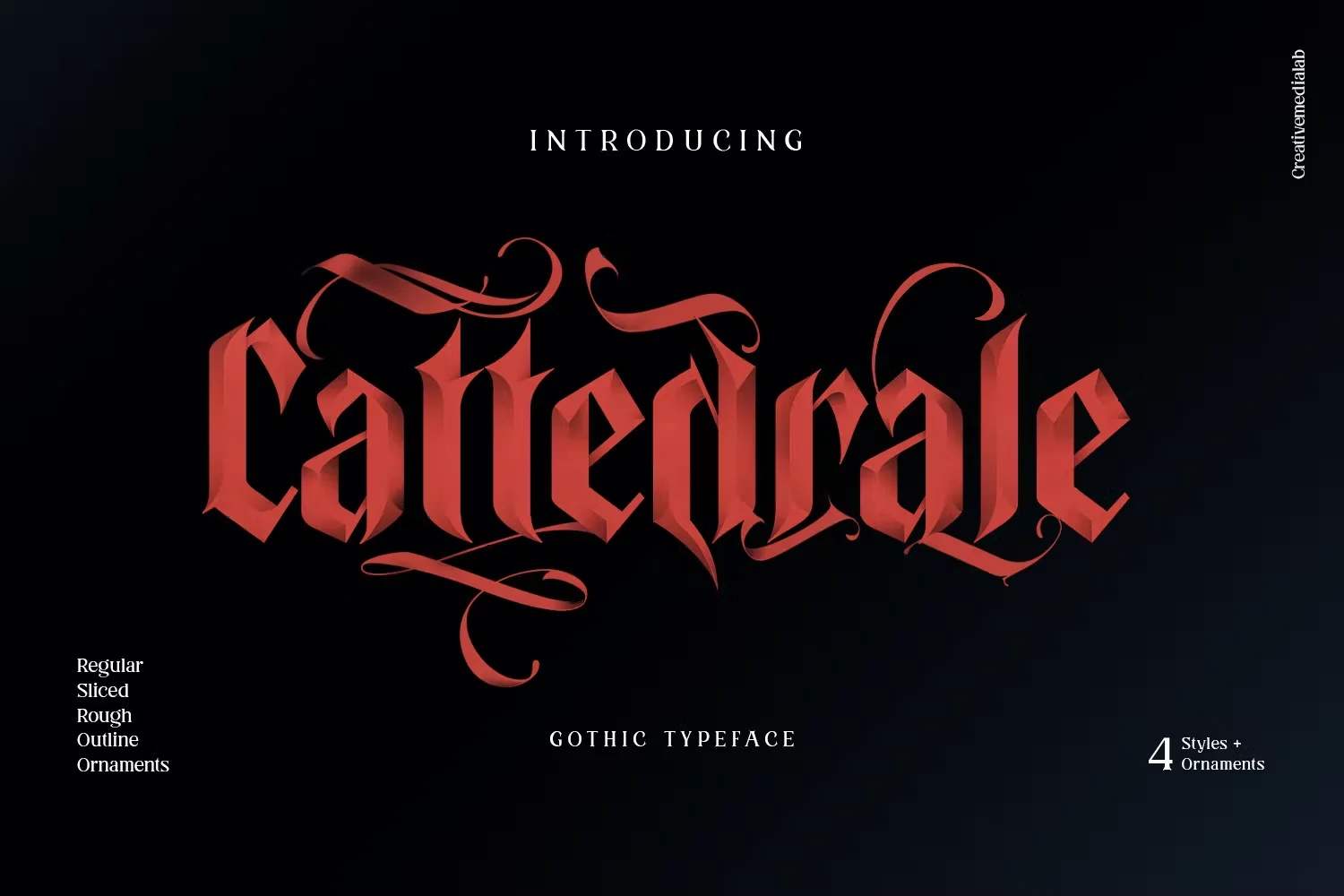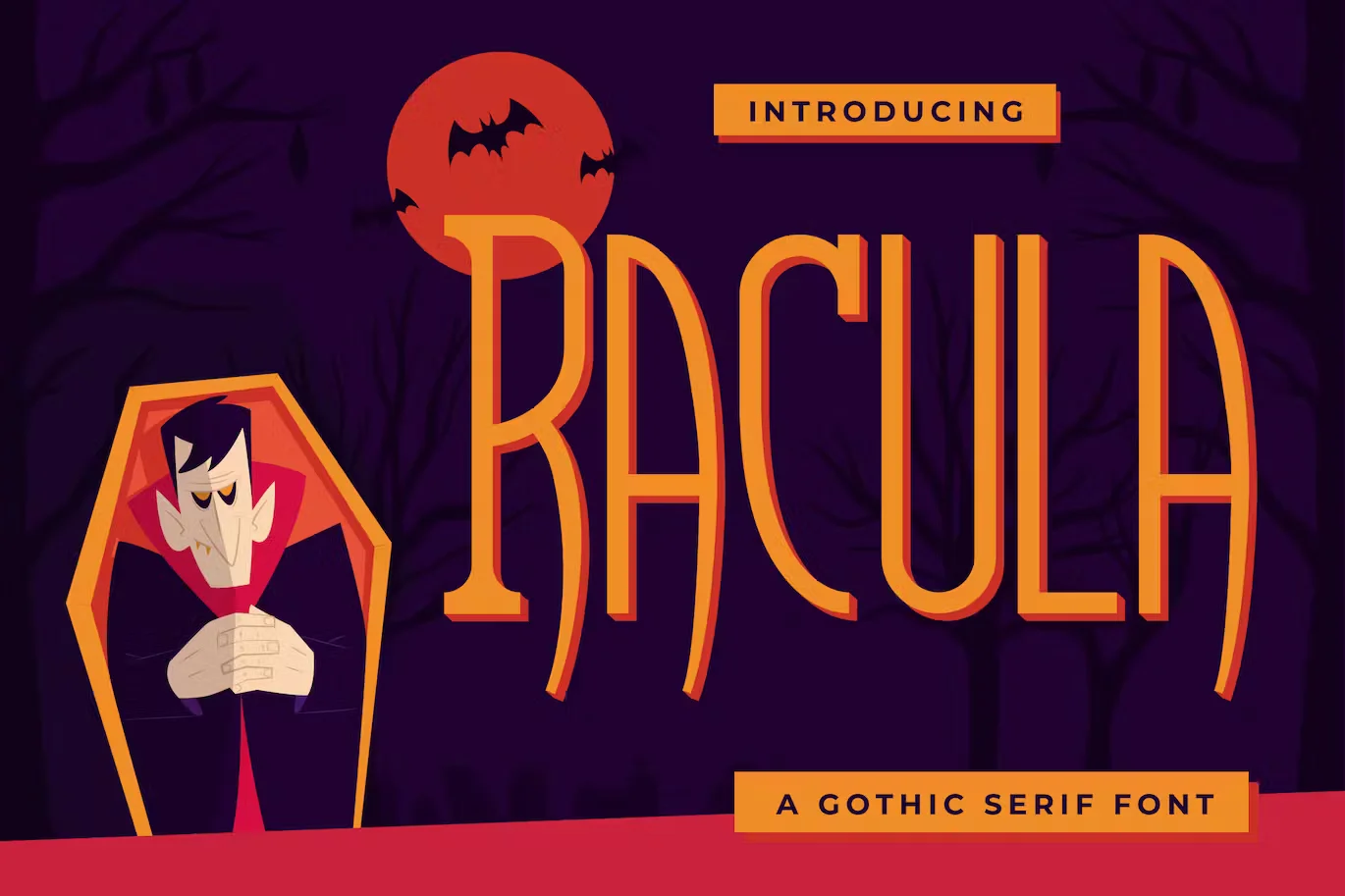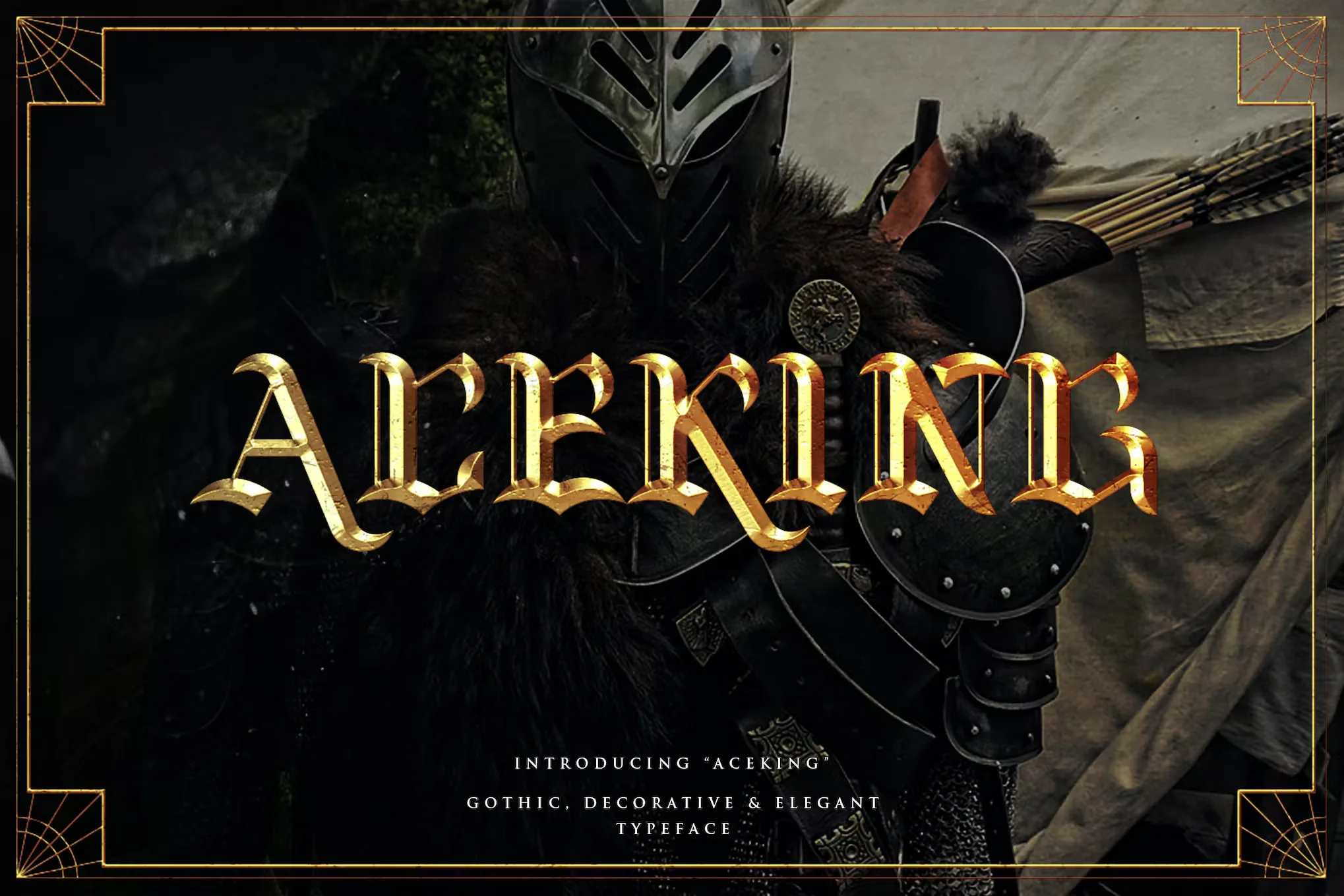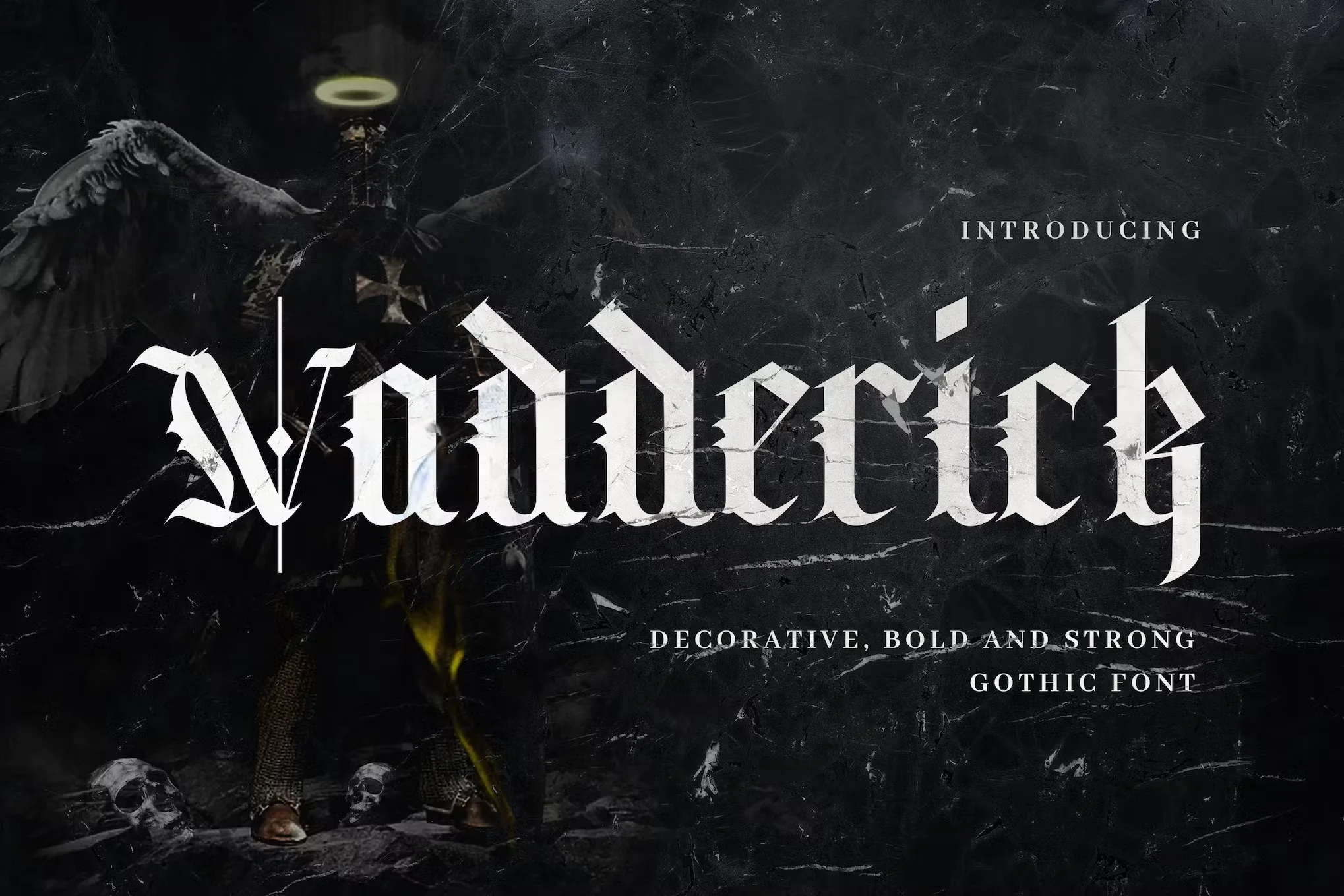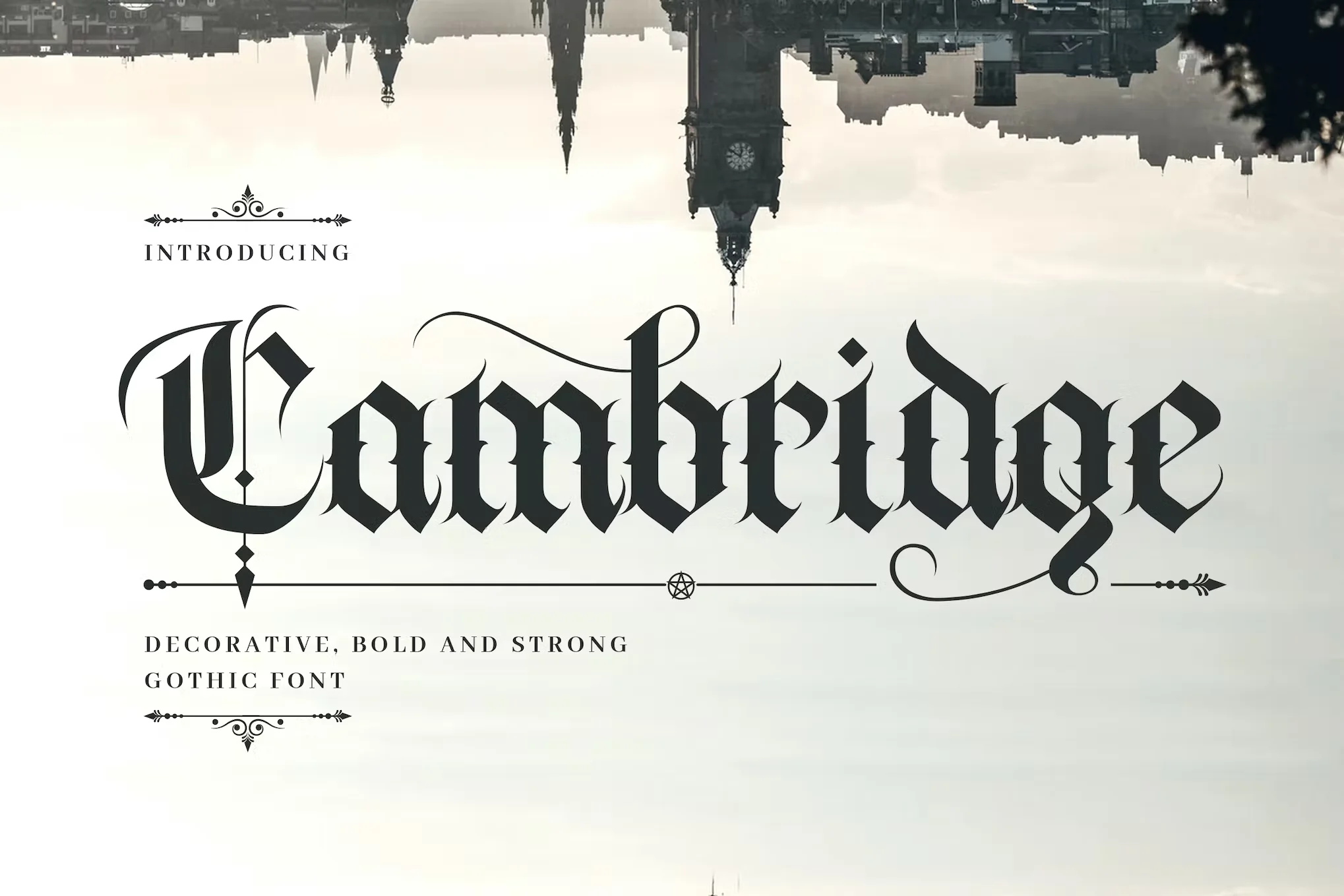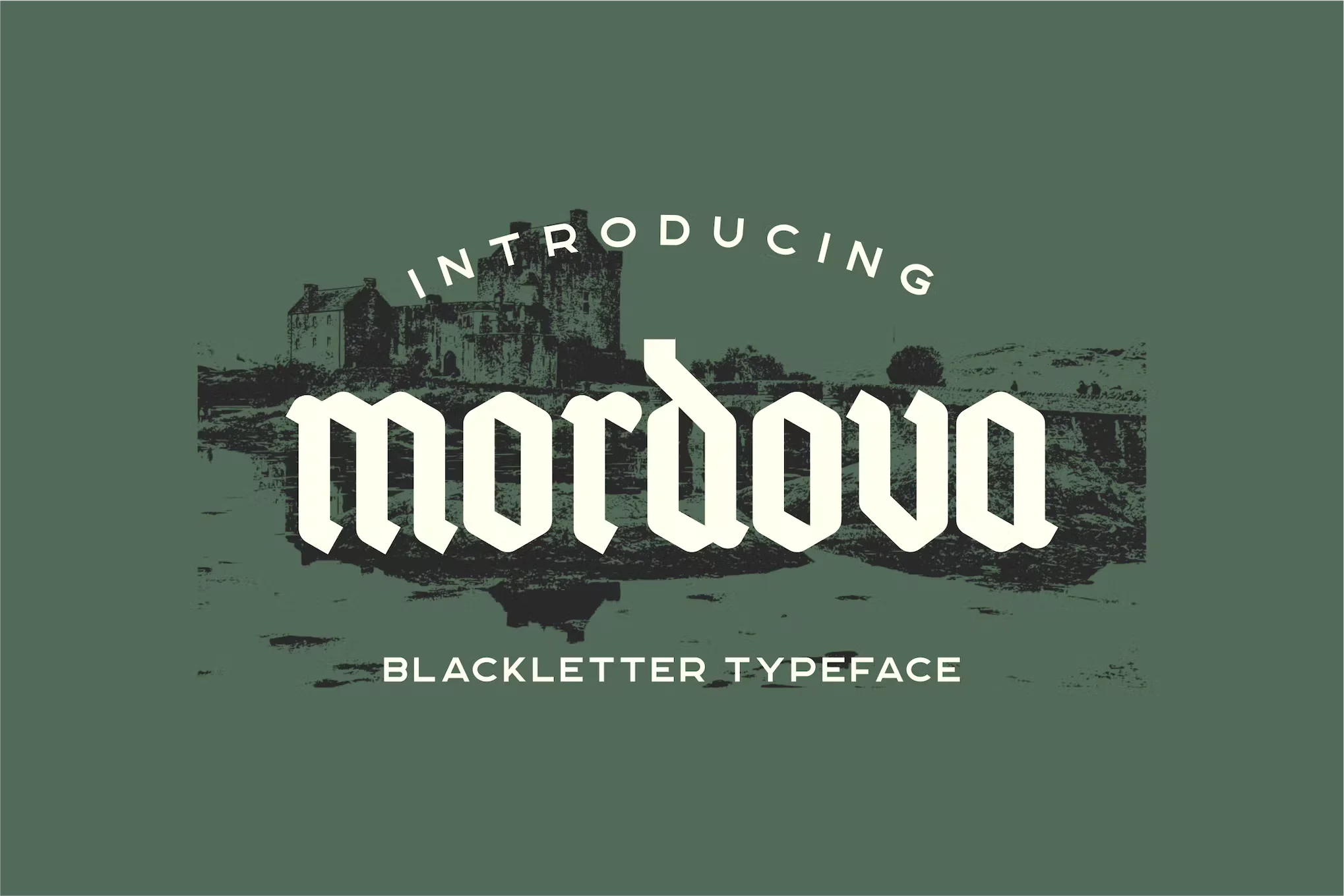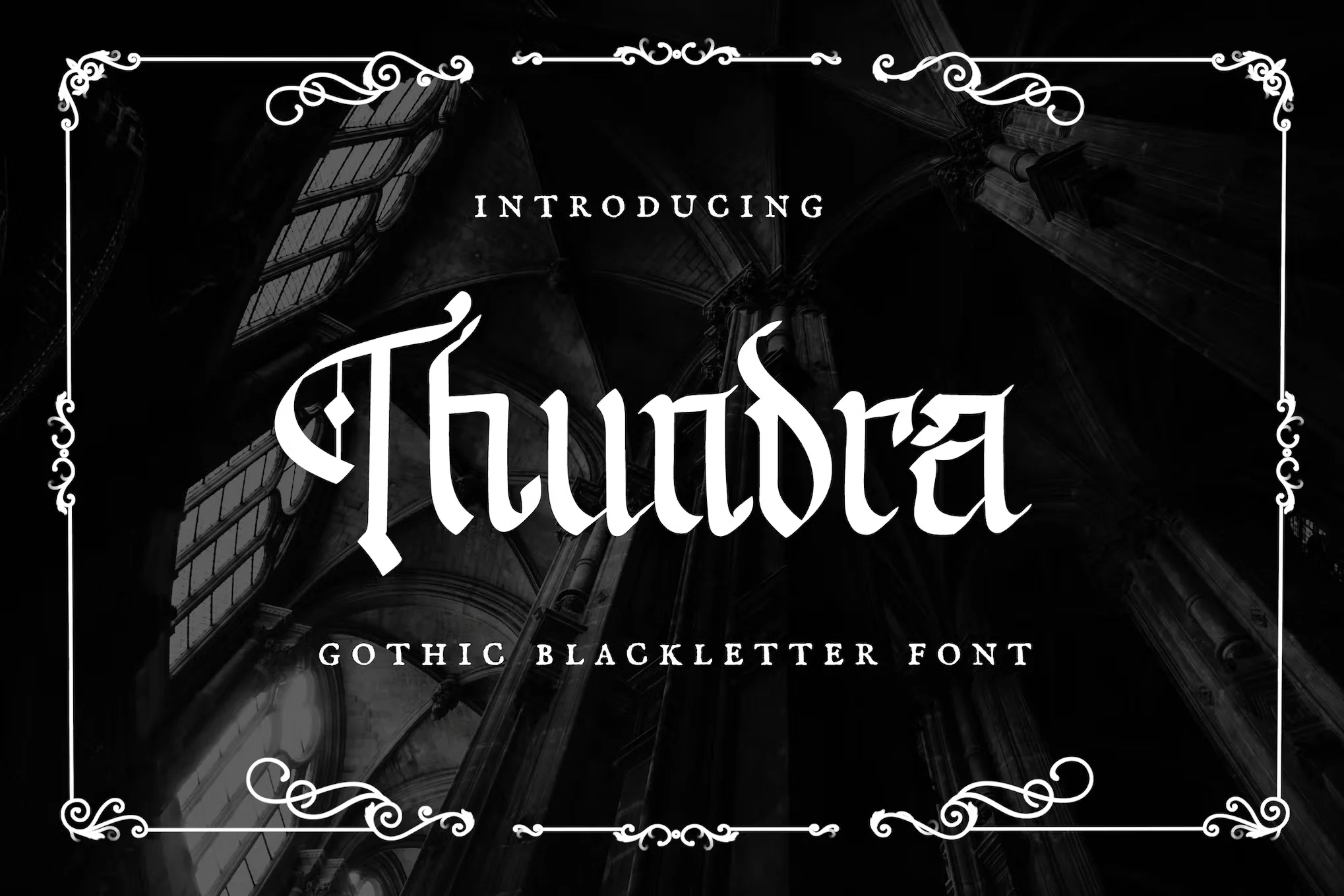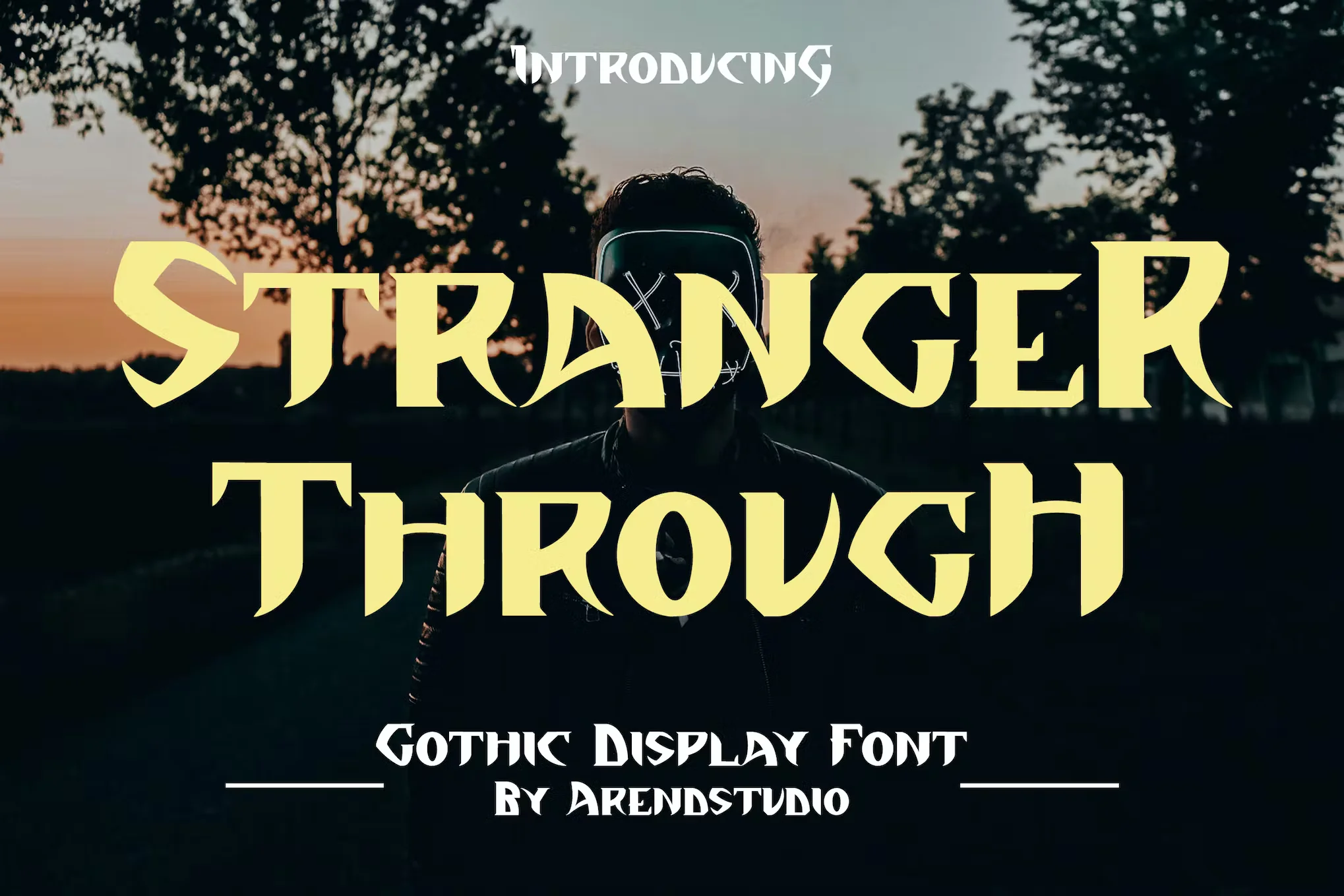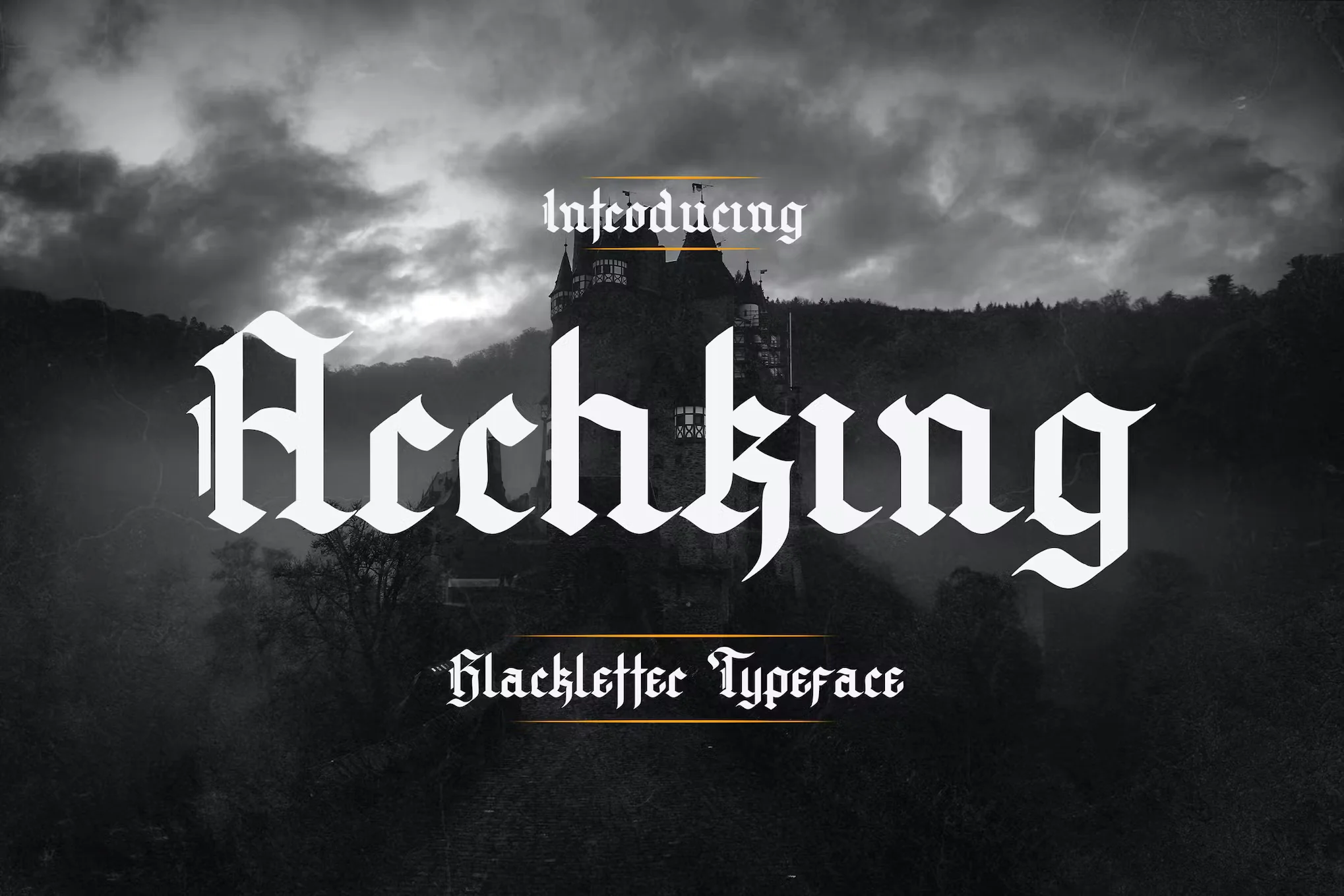
50+ Best Gothic Fonts 2025 (Free & Premium)
Gothic fonts have a mood. They’re bold, dramatic, and impossible to ignore. Whether you’re going for something vintage, medieval, dark, or just beautifully detailed, a good gothic font brings a strong presence to your design.
They’re often used in band logos, tattoos, posters, clothing brands, and anything that needs a little edge. Some look like they came straight out of an old manuscript, while others mix gothic vibes with modern style and cleaner lines, better readability, and still all the impact.
If you’re searching for fonts that feel intense, artistic, and full of character, this list is for you.
What Are Gothic Fonts or Blackletter Fonts?
Gothic fonts are one of the oldest types of fonts, dating back to the 15th century. It can make any typographical layout look magnificent and majestic, and it’s probably why gothic fonts are widely used in branding and logo design.
Gothic fonts, also known as Blackletter fonts, are a type of font distinguished by the intricate intricacies and pointed edges of the letters. Gothic fonts, once associated with the gloom and mystery of medieval calligraphy, have become increasingly popular in modern designs. Products featuring Gothic lettering can be found everywhere from product labels to tattoos, badges, logos, and poster titles. With this style of font becoming more widespread, it’s easy to add a touch of medieval sophistication to any design.
1. Grenosa Gothic Font
Grenosa is a gothic font with metal and victorian style, it bring sophisticated of gothic font into horror, dark and fantasy visual design. This font come with more versatile with the addition of stylistic alternates that you can mix and match to make your design stand out even more.
2. Killuminati Gothic Type
Killuminati is a simple english old type with modern blackletter style. This typeface is inspired by gothic & classic rock band logo. killuminati has a bold font with a combination of sharp and curved corners.
3. Westa Gothic Blackletter Font
Westa Gothic offers beautiful typographic harmony for a diversity of design projects, including logos & branding, social media posts, advertisements & product designs.
4. Kaiser Gothic Font
Kaiser Gothic Font is a timeless, vintage and elegant gothic display font that captures the essence of classic, vintage aesthetics. Drawing inspiration from medieval calligraphy, it features sharp, intricate lines and ornate serifs that evoke a sense of historical grandeur.
5. Danger Gothic Modern Blackletter Font
Danger Gothic by Holyline is a casual black letter font. This font comes with modern and unique shape inspire by Old English style. It’s very unique, playful, elegant and very easy to combine with your design style.
6. Clawed Gothic Blackletter Font
Clawed is a gothic font that can make it easier to convey the message in your design, it’s suitable for logo, labels, badge, branding, magazine, poster, title, gigs, covers and etc.
7. Colide Gothic Font
Colide Gothic Font presents a unique take on Gothic style, breaking away from conventional norms. This font features distinctive pointed tips and a cut line running through the body, setting it apart from typical Gothic fonts. Its edgy and unconventional design adds a touch of intrigue and horror to your projects.
8. CS Branco Gothic Font
CS Branco Gothic Font is a mysterious and elegant display serif font that encapsulates the grandeur and complexity of Gothic design. With its dramatic, sharp serifs and intricate ornamental lines, this font evokes a sense of medieval mystery and artistic elegance.
9. BLEZED Blackletter Gothic Display Font
BLEZED Blackletter Gothic Display Font a distinct, highly detailed, and chic Blackletter font. It would make a great choice for exquisite retro-urban designs, tattoo business branding, logos, vintage designs, movie, poster, apparel, illustration, and more.
10. Vesgard a Gothic Blackletter Font
Introducing Vesgard – a meticulously crafted gothic blackletter typeface born from the elegance of handwritten artistry. Vesgard embodies the essence of gothic and dark aesthetics, making it an ideal choice for designs that seek to evoke a sense of mysticism and depth.
11. Rumonds Blackletter Gothic Font
Introducing ‘Rumonds’ is a unique blackletter display font that showcases a modern twist on the traditional gothic style with sharp, pointed serif and vertical emphasis, and thick vertical strokes.
12. Black Rose Gothic Font
Black Rose Gothic Font is a refined gothic serif font that seamlessly blends dark elegance with a vintage allure. Its timeless gothic style makes it ideal for creating a moody and romantic aesthetic, futuristic, bringing sophistication and depth to any project.
13. The Ancient – Medieval Sans Typeface
Introducing The Ancient font. If you’re in need of a medieval sans font with a vintage vibe, we’ve got just the thing. The Ancient is a versatile mediaeval sans font perfect for invitations, banners, movie titles, brands, events, games and more. Download it now and see for yourself!
68. Vadderick – Vintage Handlettering Calligraphy
Introducing Vadderick font – a bold handlettering calligraphy font with a medieval feeling. the vadderick font is manually handcrafted using calligraphy pen and is perfect for any occasion such as book, logo, print, game, event, music, invitation and more.
Conclusion:
On that note, here are our choices for the best free and premium gothic fonts to use when designing with blackletter or Gothic fonts. Give them a try and remember, if you’re going to use any of these fonts, use them wisely.